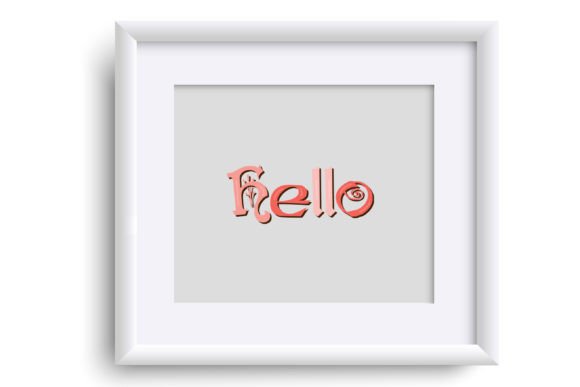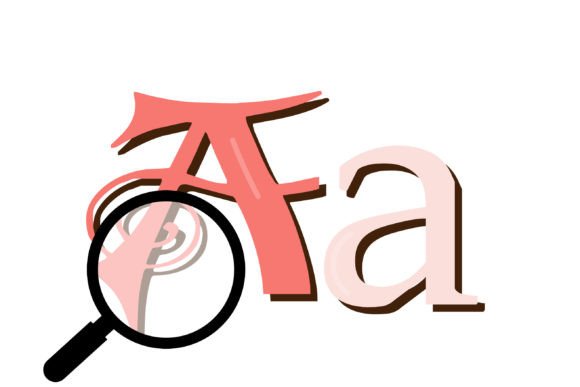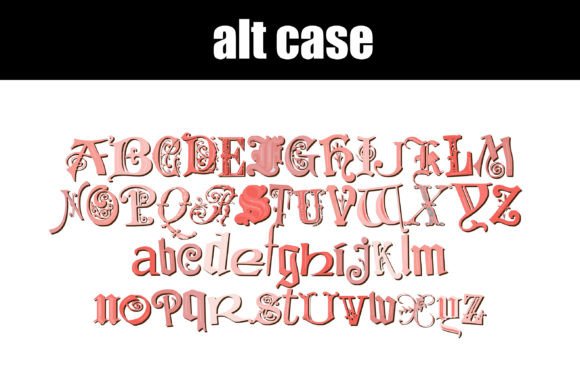
Introduction to Pinky Mix Font
As a designer, there’s nothing quite like the thrill of bringing a creative project to life. The moment when a concept clicks, and the right design elements come together to convey your message – it’s pure magic. For me, that moment often starts with a font that sets the tone for the entire project. And that’s exactly why I’m excited to share with you the Pinky Mix Font – a stunning, full-color design resource that’s sure to elevate your creative endeavors.
What I love about the Pinky Mix Font is its versatility and high-quality design. This font features a unique mix of type styles in a beautiful pink color palette, making it perfect for a wide range of creative projects. And the best part? Each letter has an alt version in a different color, accessible through your system or Silhouette’s character map. With this font, the possibilities are endless, and I’m excited to explore the many ways it can be used.
Pinky Mix Font
- High-quality design resource featuring a unique, playful mix of characters.
- Comes with a transparent background, allowing for easy integration into various design environments.
- Features a bold, eye-catching design that’s perfect for adding a touch of personality to any creative project.
Honest Review: Pinky Mix Font
As a designer, I’m always on the lookout for high-quality design resources to elevate my creative projects. Recently, I stumbled upon the Pinky Mix Font, and I must say, it’s been a pleasant discovery.
Here are some of the things that work well for this font:
- Unique blend of modern and playful styles, making it perfect for projects that need a touch of whimsy.
- Transparent background, allowing for seamless integration with any design element.
- High-quality design that’s perfect for print or digital projects.
- Only available in a limited number of font styles, which may not be ideal for designers who need a wide range of options.
- Not as versatile as some other fonts on the market, which may limit its use in certain creative projects.
Overall, I’m impressed with the Pinky Mix Font, and I would definitely recommend it to designers looking for a fun and modern font to add some personality to their work. ⚠️ Just keep in mind the limitations mentioned above, and you’ll be good to go! ✨
Pinky Mix Font
Pinky Mix Font is a unique and versatile design resource ideal for creative projects. This high-quality font offers a distinctive touch to your designs, making it a must-have for any designer or artist.
Tips for Getting the Most Out of Pinky Mix Font
To get the most out of Pinky Mix Font, try combining it with other design elements, such as transparent backgrounds and bold graphics. This will help you create eye-catching designs that stand out.
Pinky Mix Font is ideal for:
- Creating eye-catching social media graphics
- Designing custom logos and branding materials
- Adding a touch of creativity to presentations and reports
Alternatives to Pinky Mix Font
1. Comic Sans MS
Comic Sans MS is a classic sans-serif font that’s perfect for creative projects, especially those with a playful tone. It’s a high-quality design resource that’s easy to read and comes with a transparent background, making it ideal for web and graphic design.
When to use: Comic Sans MS is great for projects that require a fun and casual tone, such as children’s books, advertisements, and social media graphics. It’s a good alternative to Pinky Mix Font when you need a more traditional and recognizable font.
Comparison: While Pinky Mix Font has a more unique and quirky feel, Comic Sans MS is a more established and widely recognized font. Comic Sans MS is also more versatile and can be used in a wider range of design projects.